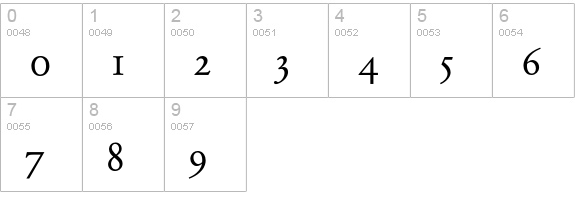
Garamond ExpBQ Regular Font Details
Garamond ExpBQ Regular is the standard, neutral variant in the Garamond typeface family \xE2\x80\x94 well suited to general body text, paragraphs, and standard typographic work.
Garamond ExpBQ Regular font is a timeless and elegant typeface that exudes sophistication and class. With its slender and graceful letterforms, this font is perfect for adding a touch of refinement to any design project. The Garamond ExpBQ Regular font offers a harmonious balance between tradition and modernity, making it suitable for a wide range of applications. Whether you are working on a book cover, a logo, or a website, this font will bring a touch of elegance and professionalism to your work. One of the best features of the Garamond ExpBQ Regular font is that it is free to download. That's right, you can access this beautiful typeface without spending a dime. Thanks to its availability on FontsMarket.com, you can easily enhance your design projects without breaking the bank. So why wait? Take advantage of this amazing offer and download the Garamond ExpBQ Regular font today. Elevate your designs with its timeless beauty and make a lasting impression on your audience.